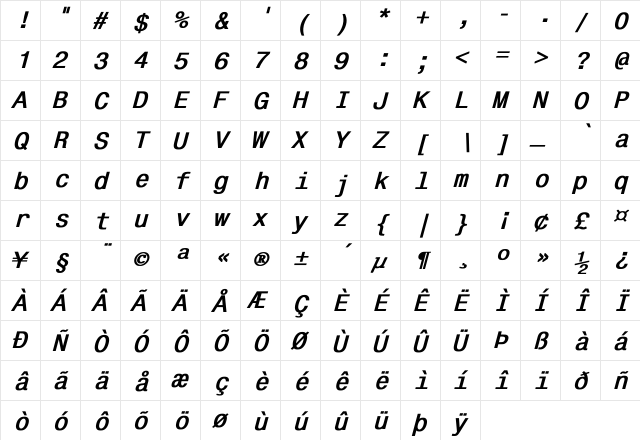
Brunhilde Italic Bold Regular
Design Context for Brunhilde Italic Bold Typeface
Brunhilde Italic Bold offers clean, dependable letterforms without strong stylistic allegiance, making it a practical choice for designers who need flexibility. The slanted form adds forward momentum and visual energy. Its bold stroke weight gives it real presence on the page.
Pro Tip: Use Brunhilde Italic Bold for emphasis, pull quotes, and subheadings where its slanted energy can add rhythm to the layout.